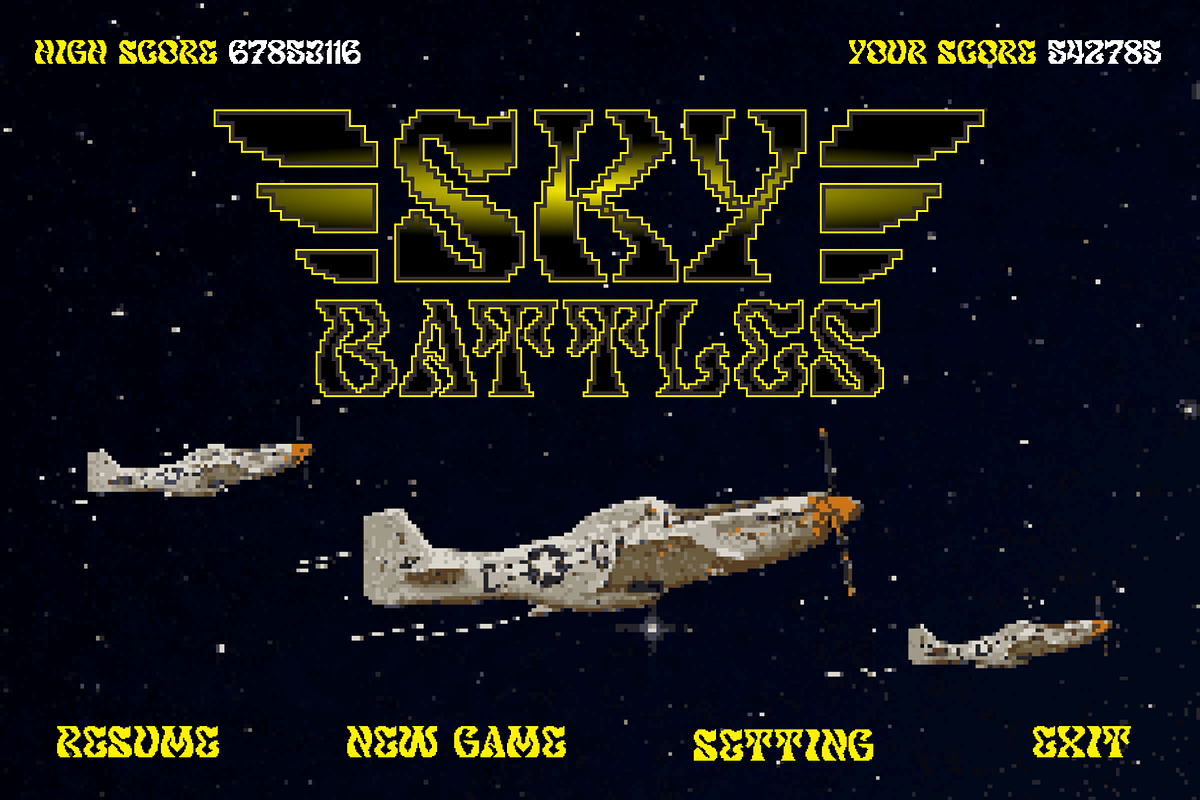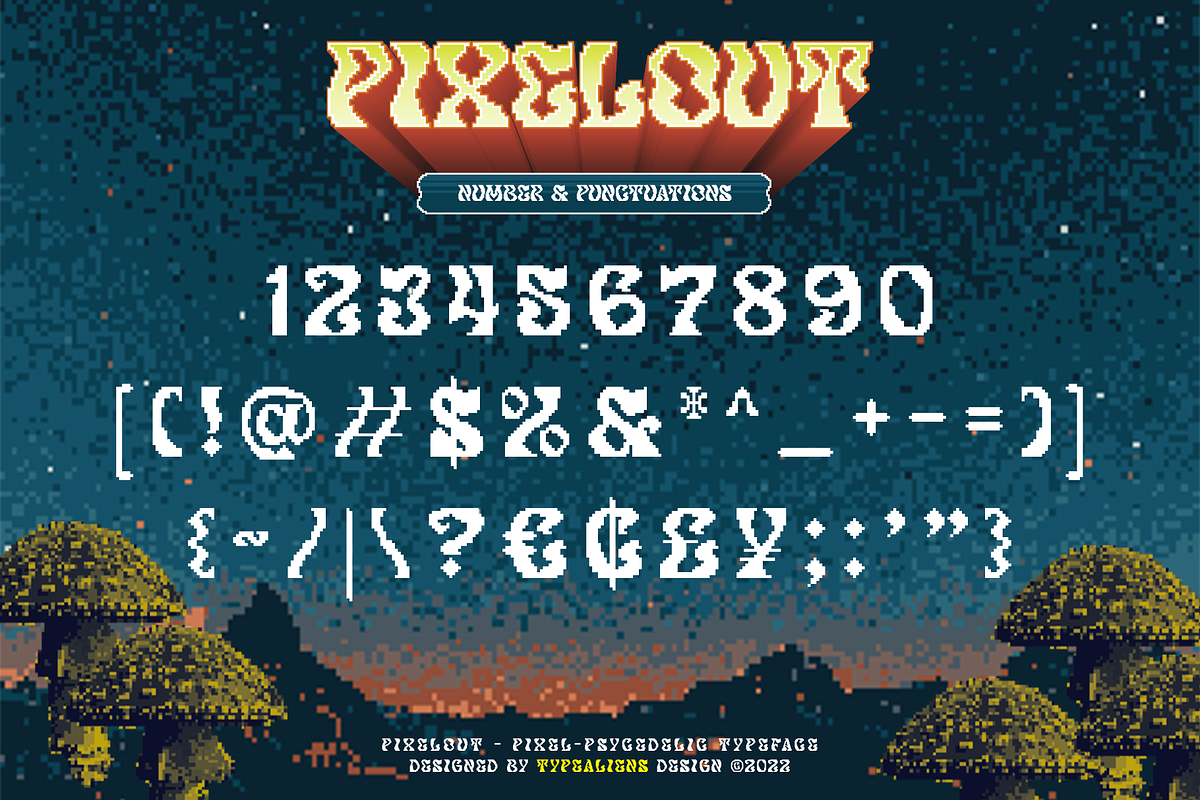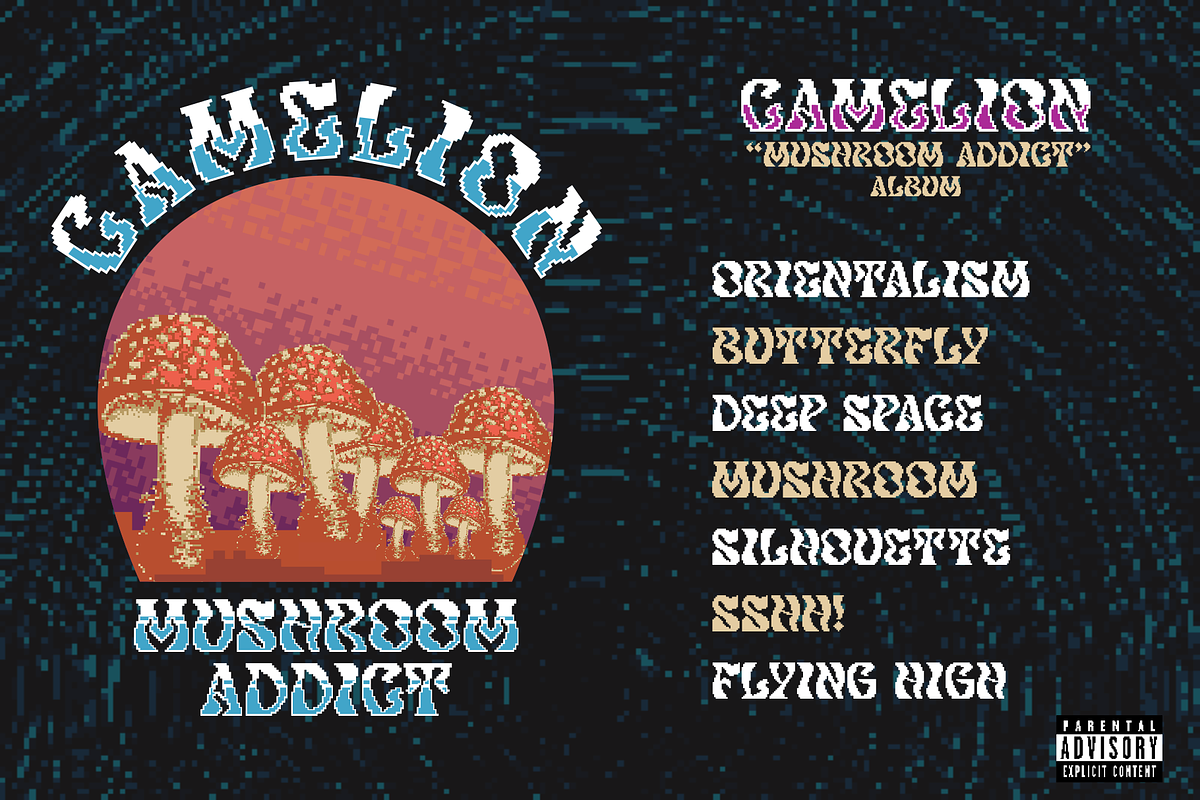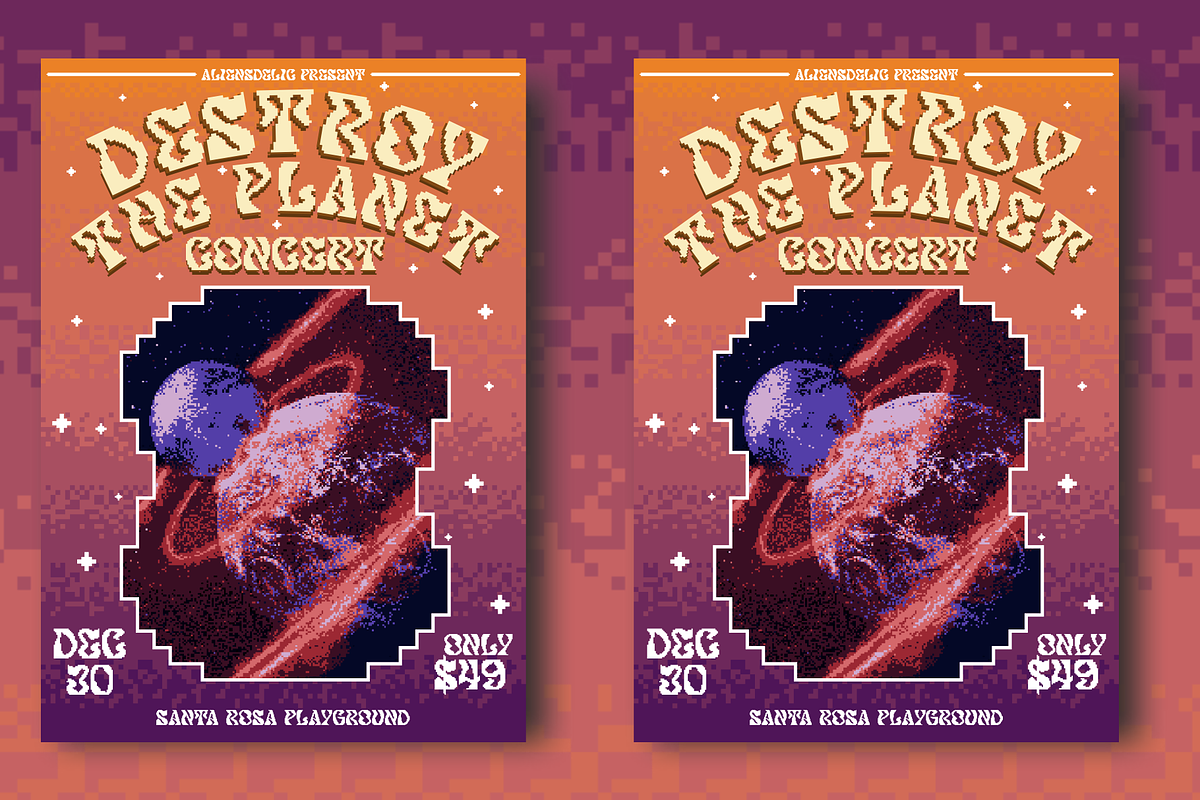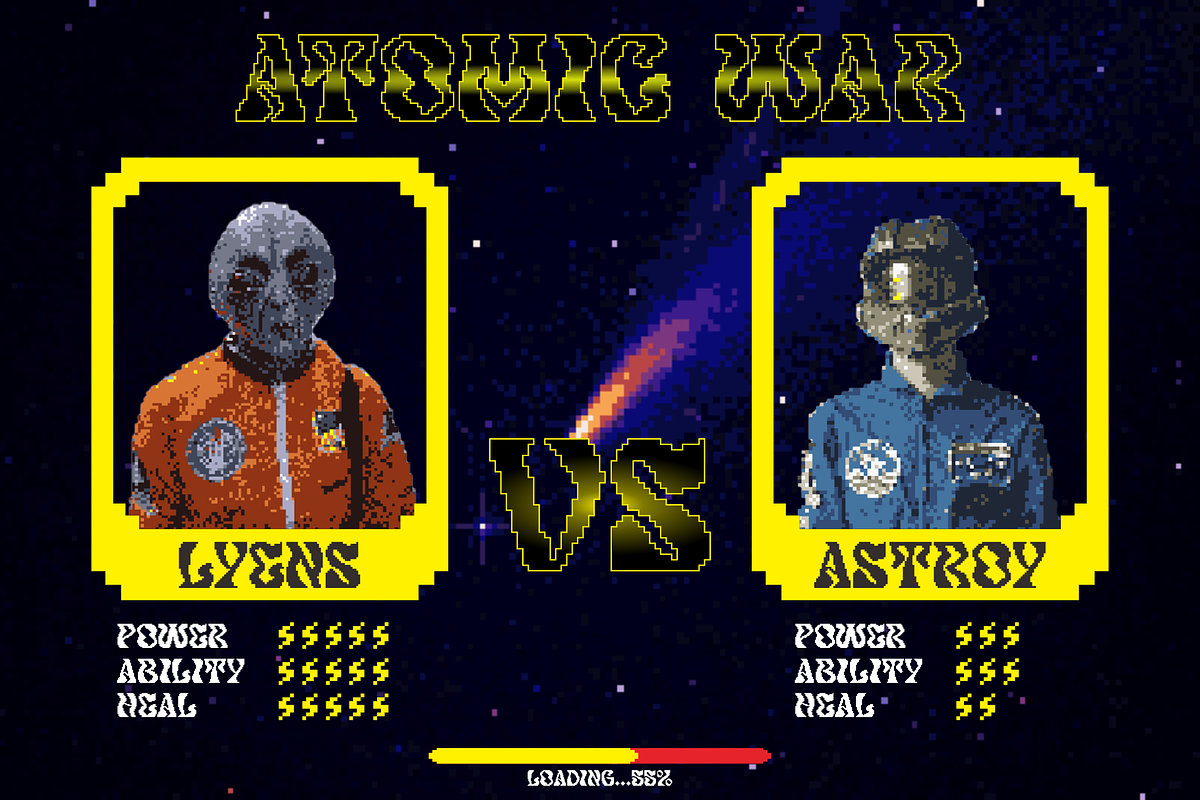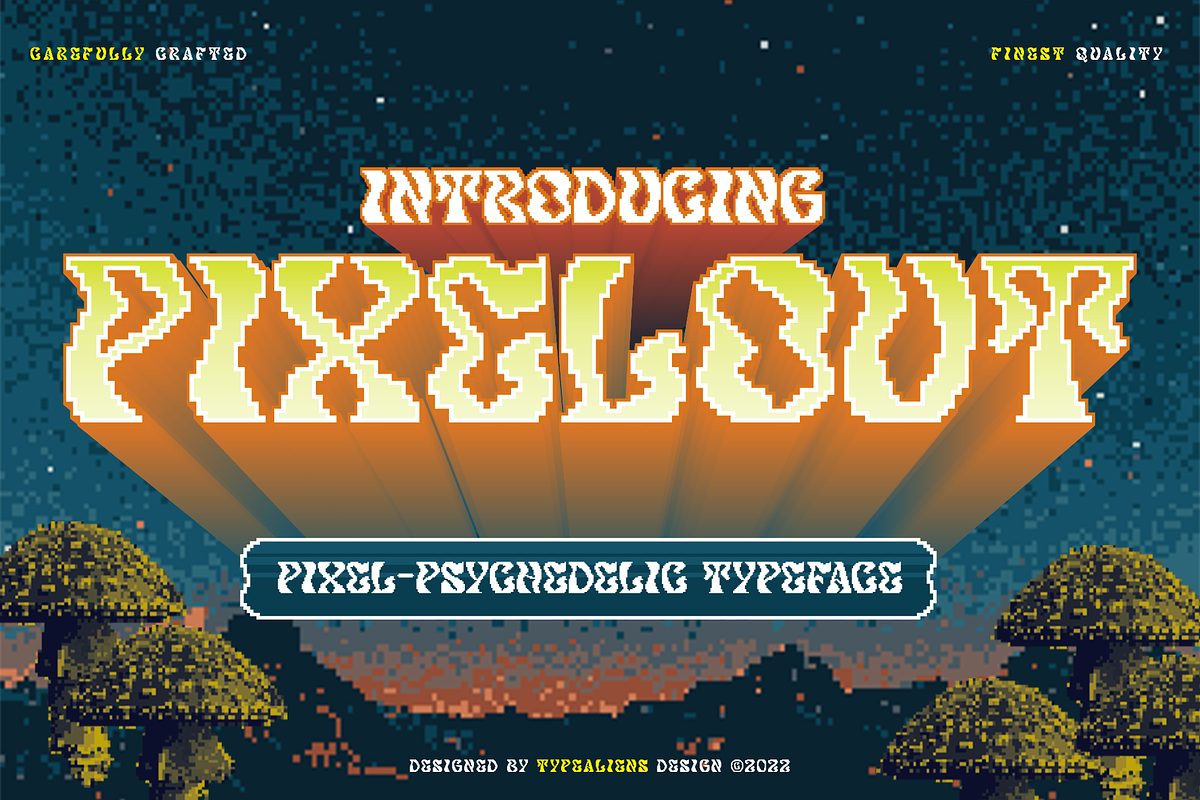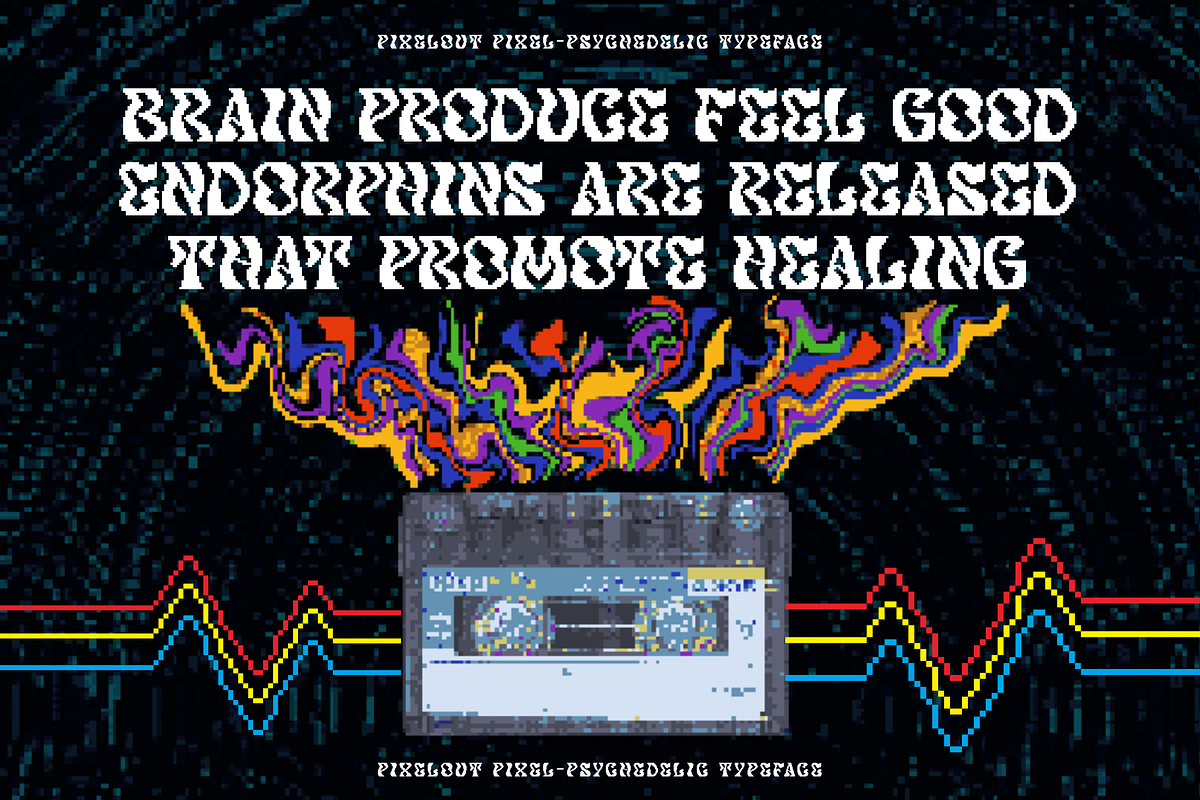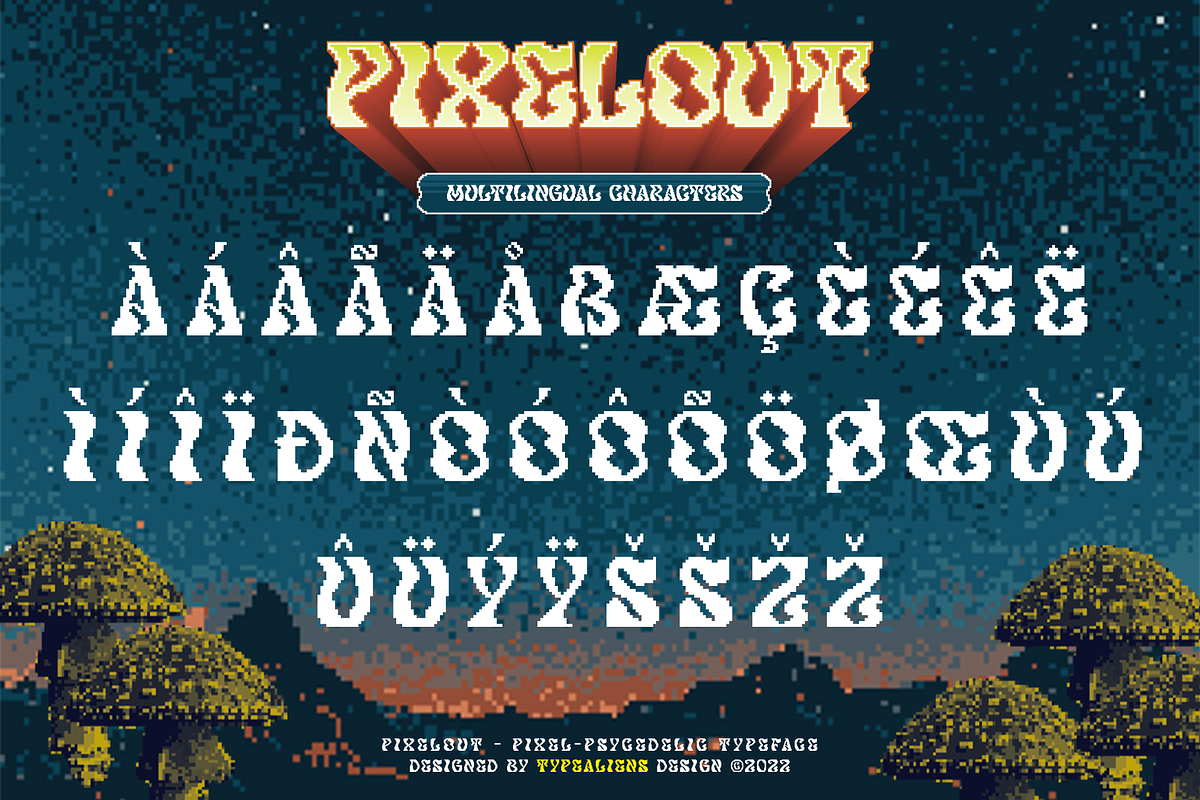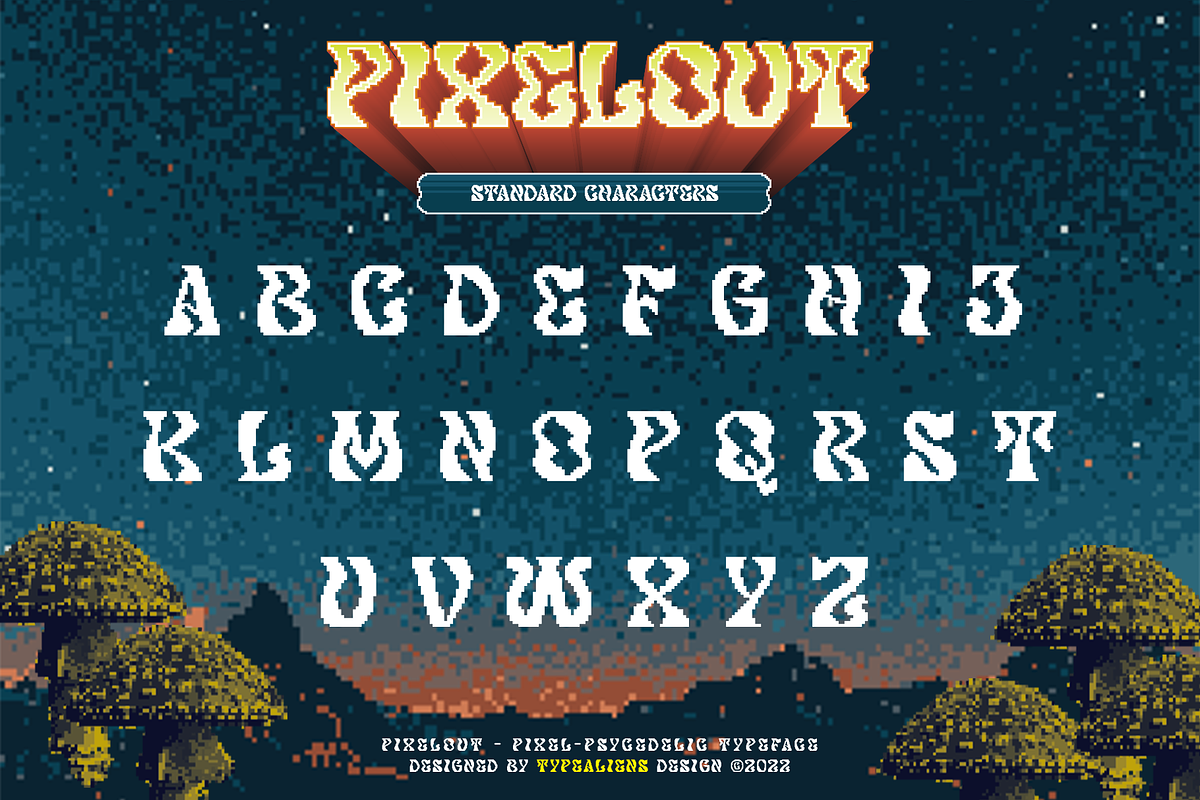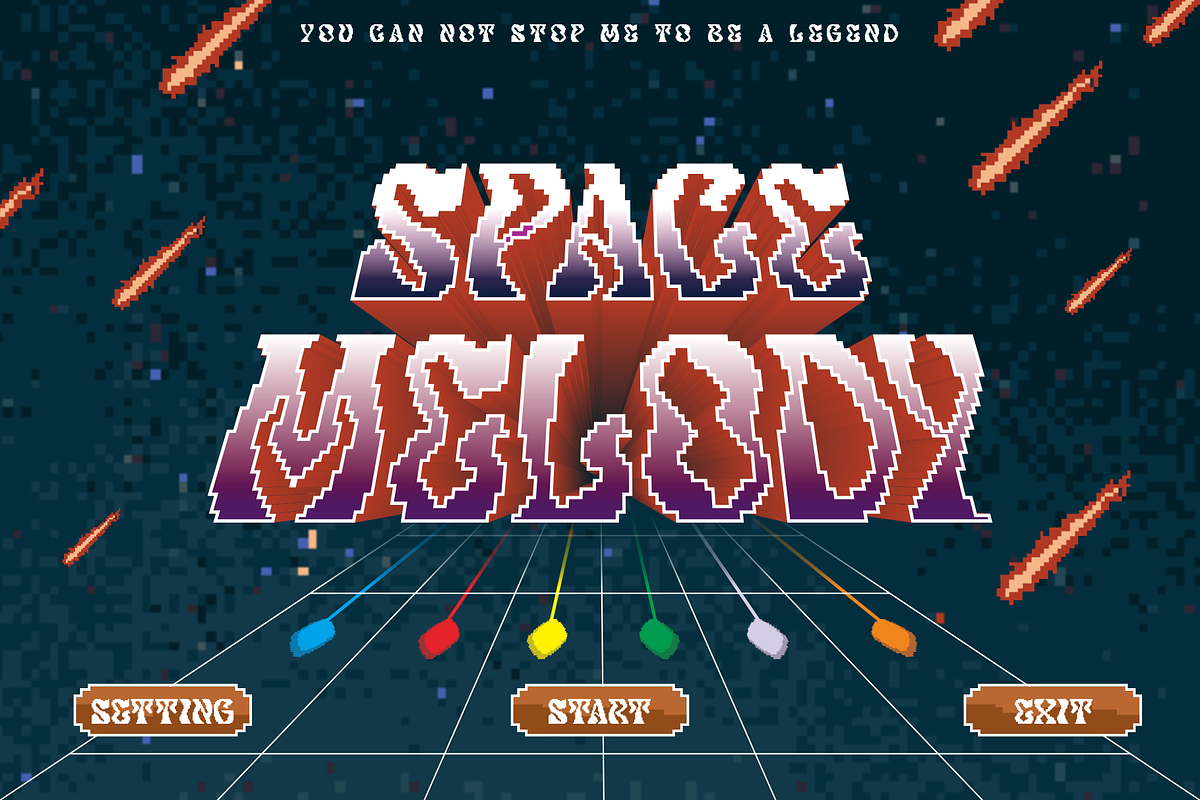
Pixelout
PIXELOUT
Pixelout is a display font based on bold serifs combined with a psychedelic style and given a low pixel effect like in a game. With its pixelated stroke characteristics, this font is perfect for different or unique designs such as in games or for bands and music event posters.
The uniqueness of this font is psychedelic-pixel, it can be categorized as a vintage font because usually old school games use this style plus it can be used for bands because psychedelic is also found in one genre of music.